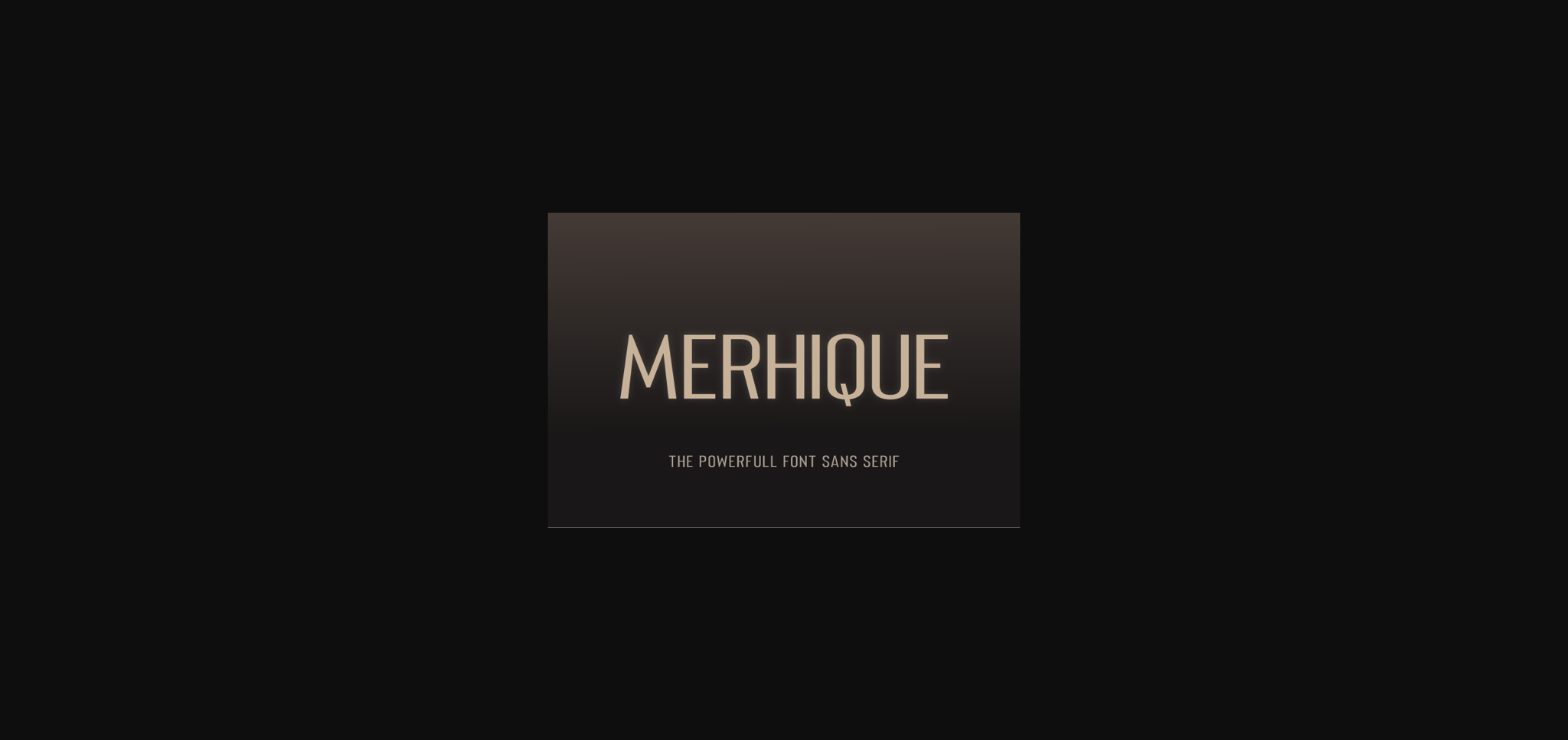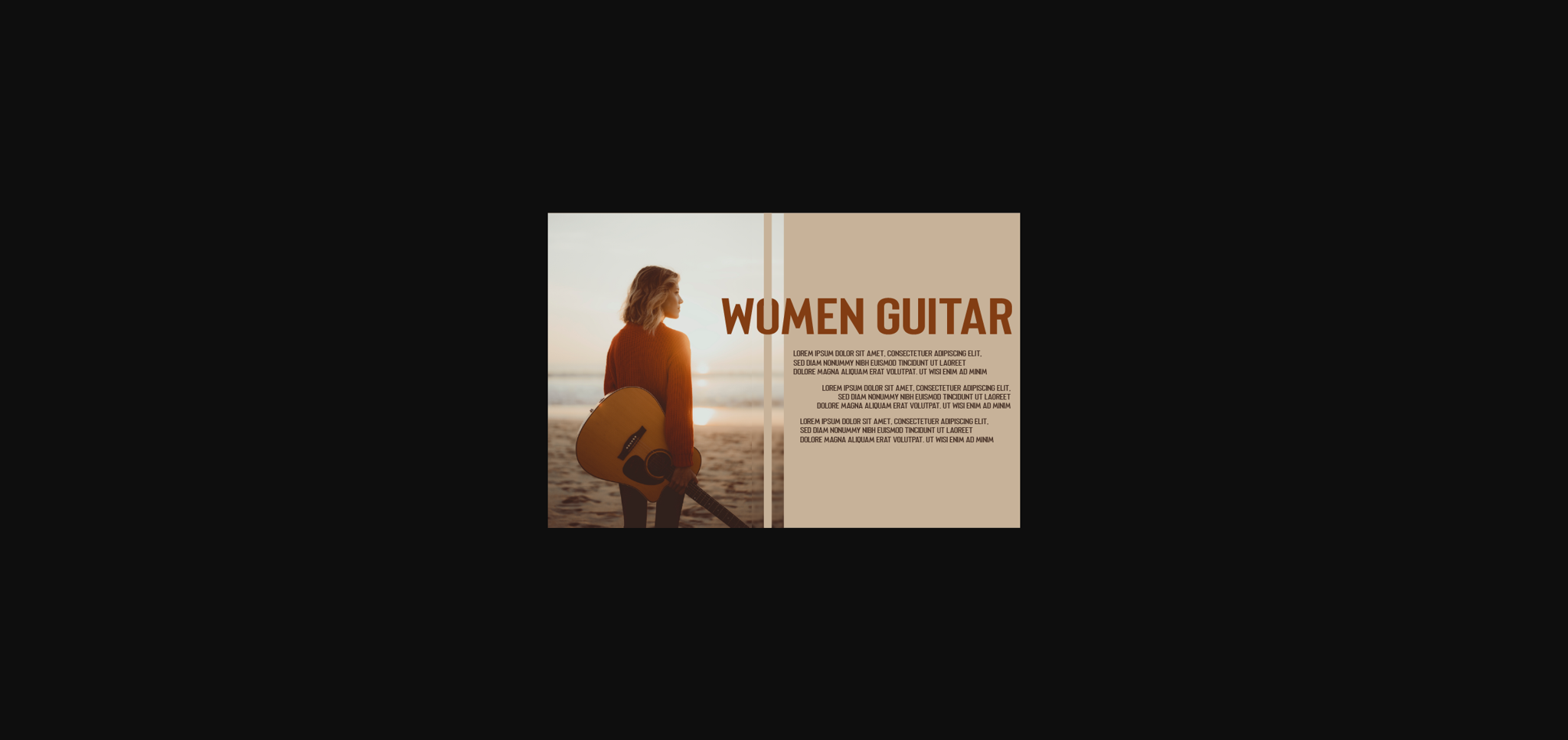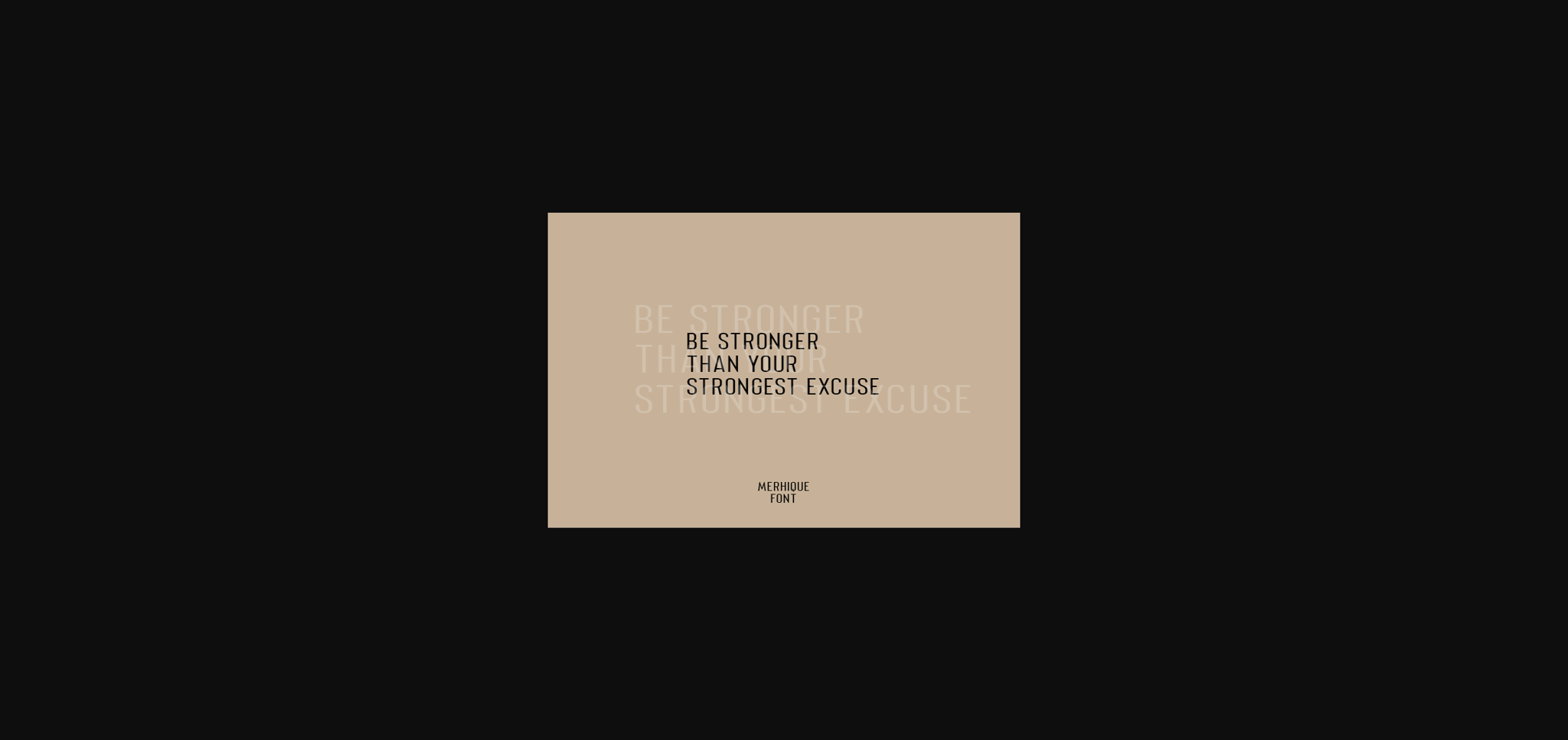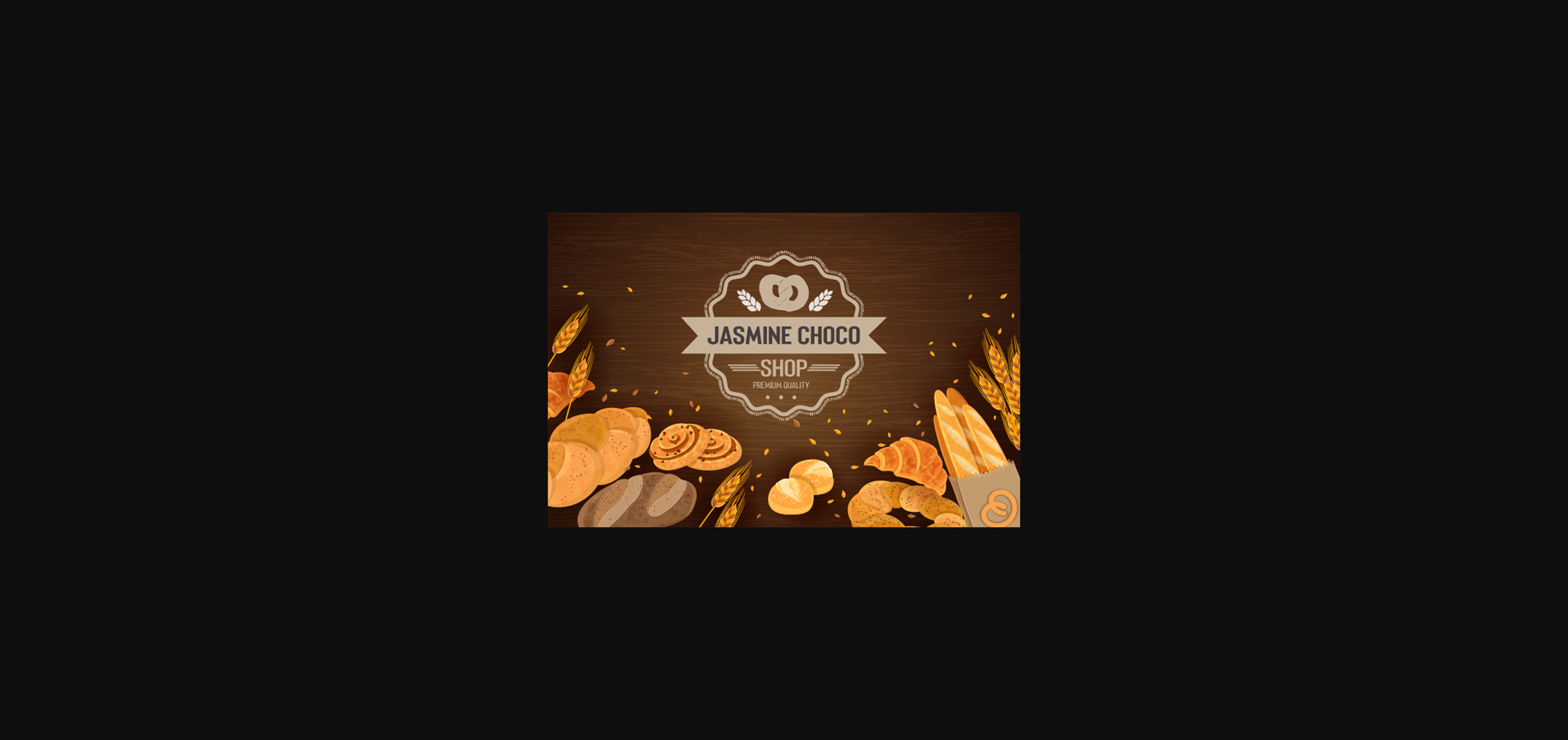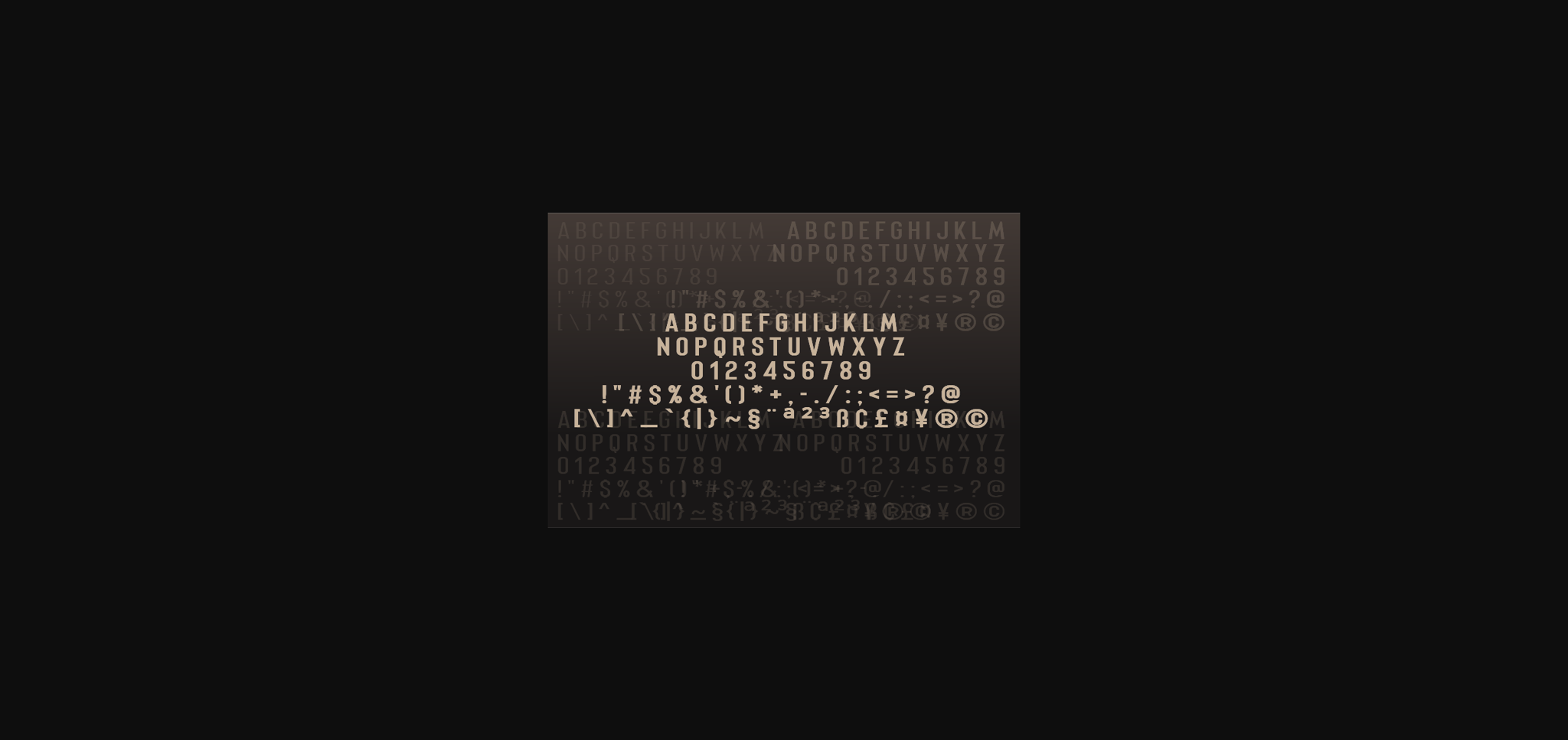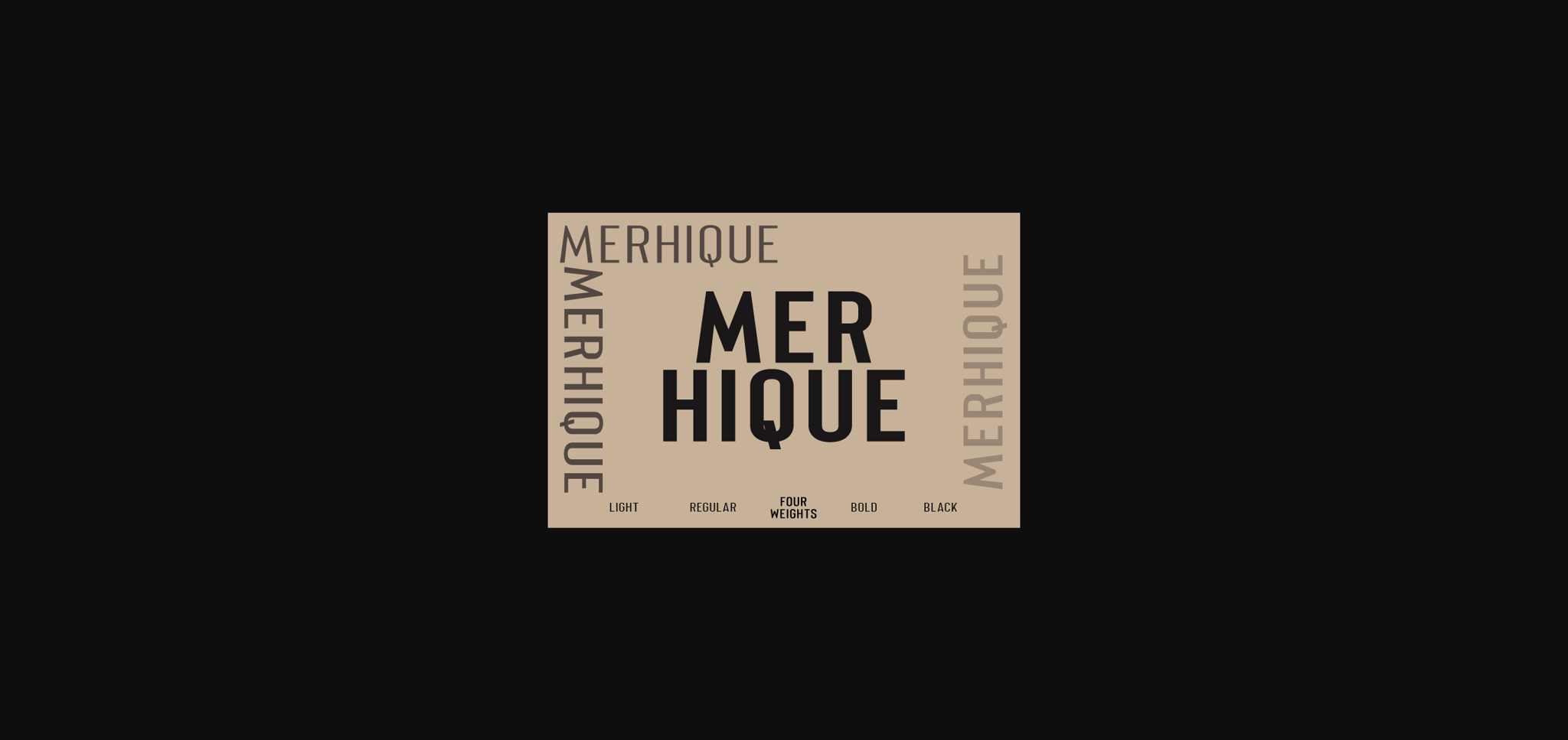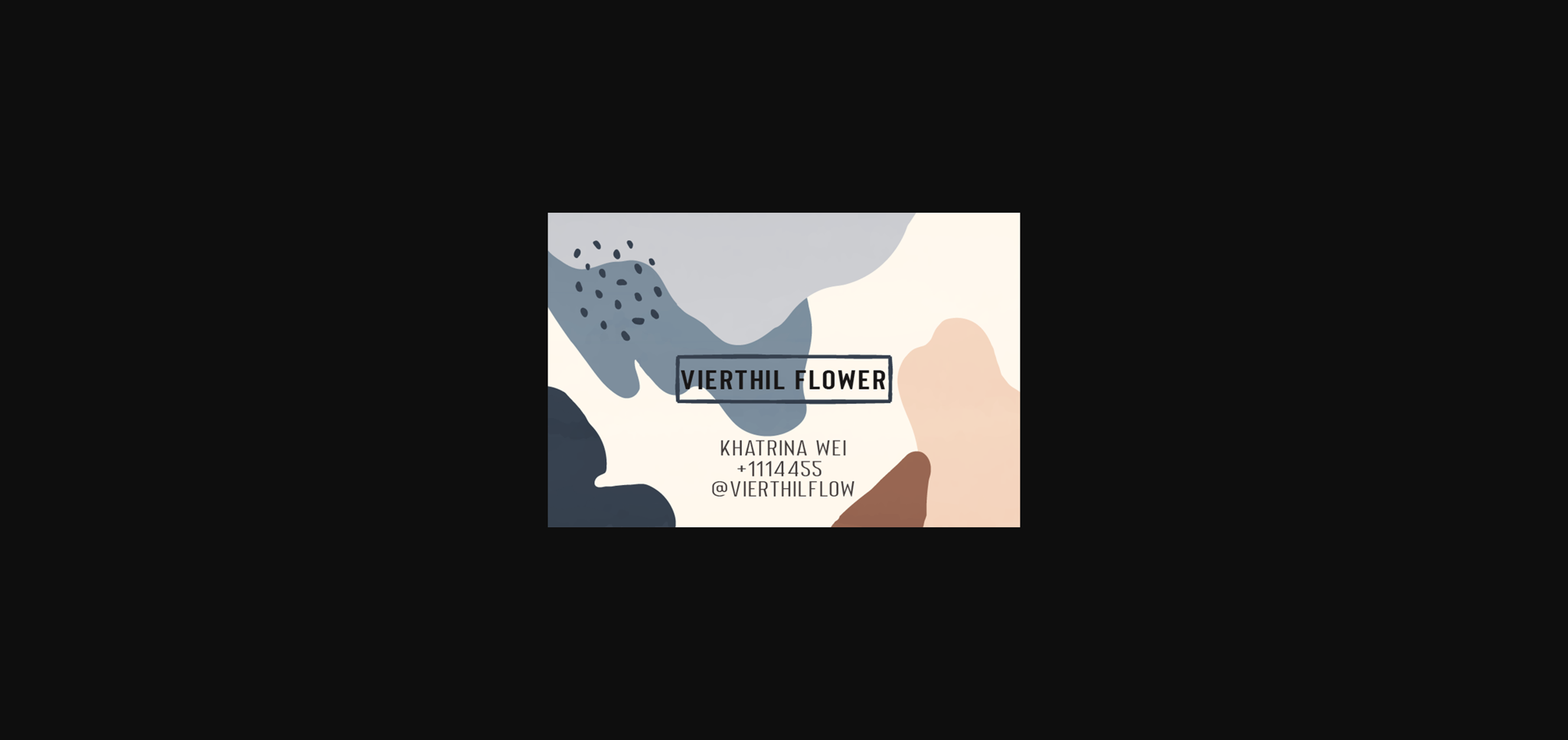
HomeSans Serif FontsMerhique Family Font Sans Serif Fonts Merhique Family Font FacebookXPinterestWhatsApp 1 of 9 ... Merhique Family Font Poster 2... Merhique Family Font Poster 3... Merhique Family Font Poster 4... Merhique Family Font Poster 5... Merhique Family Font Poster 6... Merhique Family Font Poster 7... Merhique Family Font Poster 8... Merhique Family Font Poster 9... About Merhique Family Font Merhique Family is a timeless and stunning all caps sans serif font. It is perfectly suited for a wide variety of projects! DOWNLOAD NOW People also explored Anthem Pride Font Surprise Spring Font Brotherpoll Font Balonku Font Ginerin Font Braston Rope Font Dysanian Font Skript 418 0 TagsMerhique Family Font Previous articleIoannina Family FontNext articleChronica Font LEAVE A REPLY Cancel reply Comment: Please enter your comment! Name:* Please enter your name here Email:* You have entered an incorrect email address! Please enter your email address here Website: Save my name, email, and website in this browser for the next time I comment. Personal Use Free Manhattan Personal Use Free Read more about this font Scarlove Personal Use Free Read more about this font Tide Personal Use Free Read more about this font Dolce Vita Personal Use Free Read more about this font BLOG Transform Your Website: Elevate Your Typography with 7 Best Web Font Generators Are you ready to transform your website's typography from ordinary to extraordinary? Great! Today, we're diving into the world of web font generators, which... Top 7 Google Fonts Alternatives for Faster and Privacy-Friendly Web Design (2025) How to Install and Use Fonts on Windows, macOS, and Web Projects Fonts That Capture the Spirit of New York City